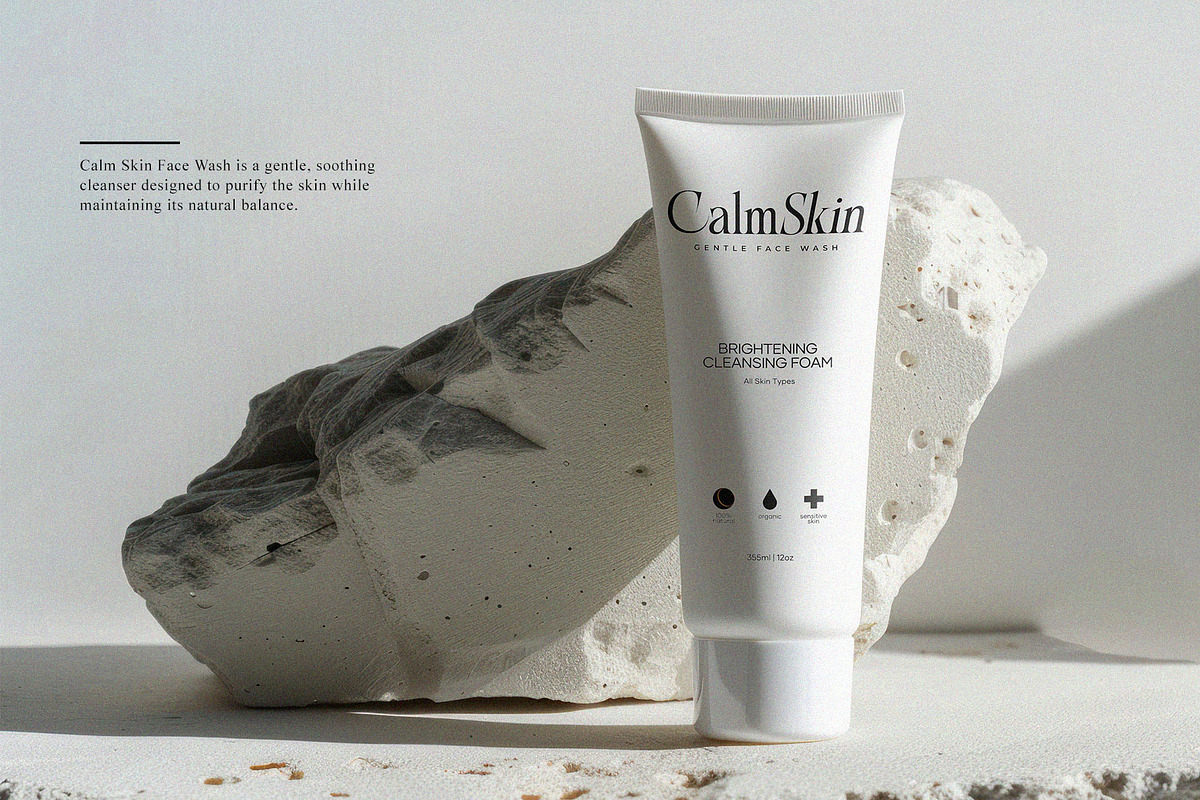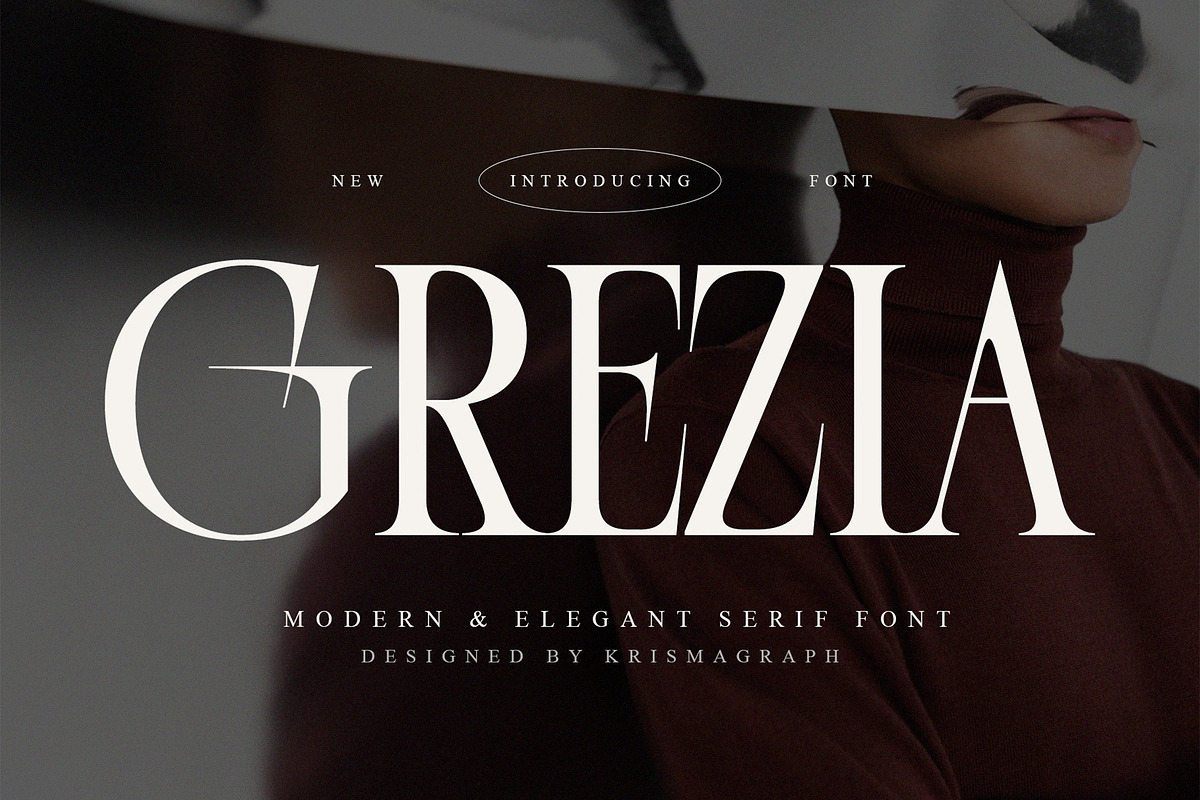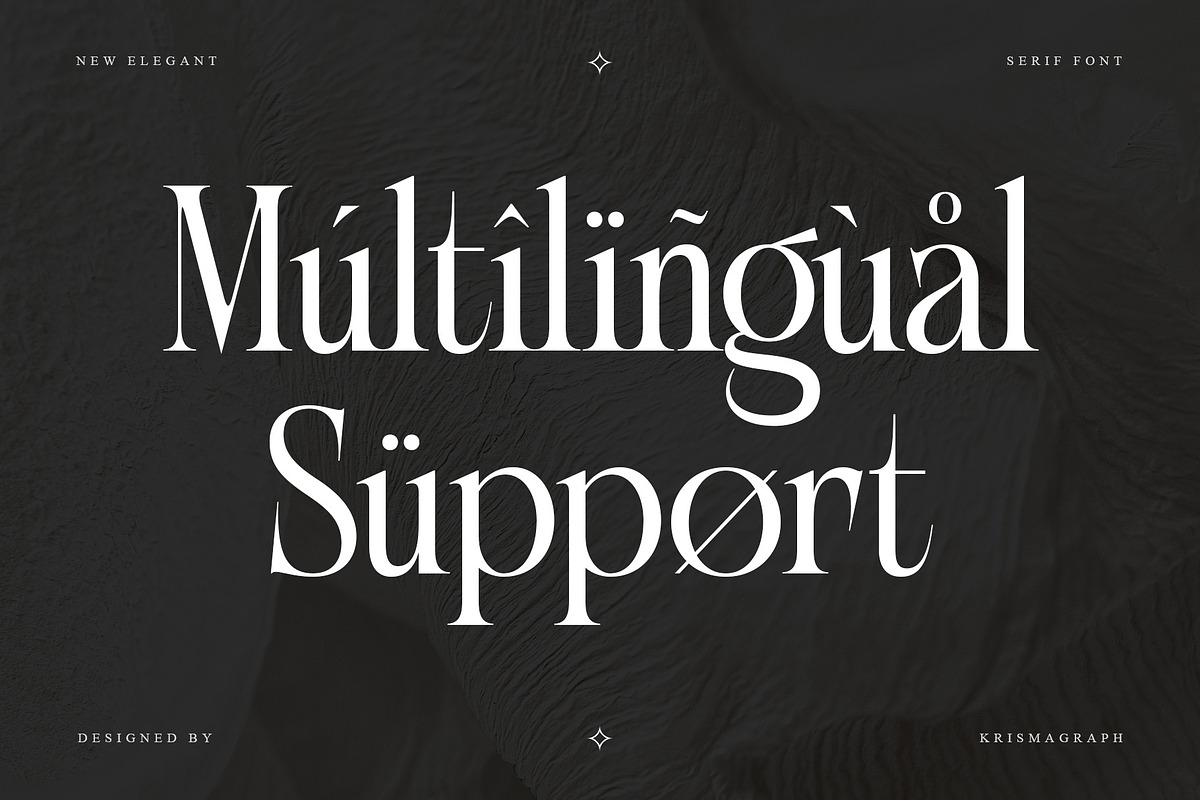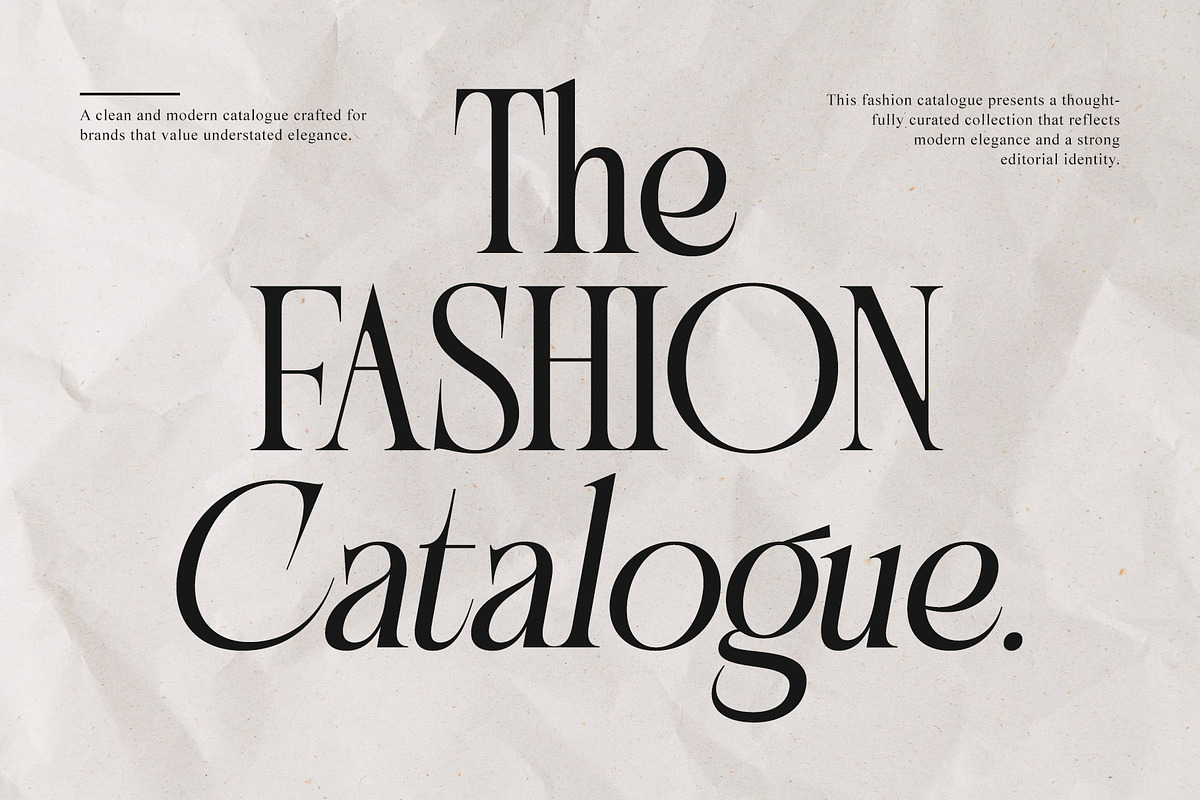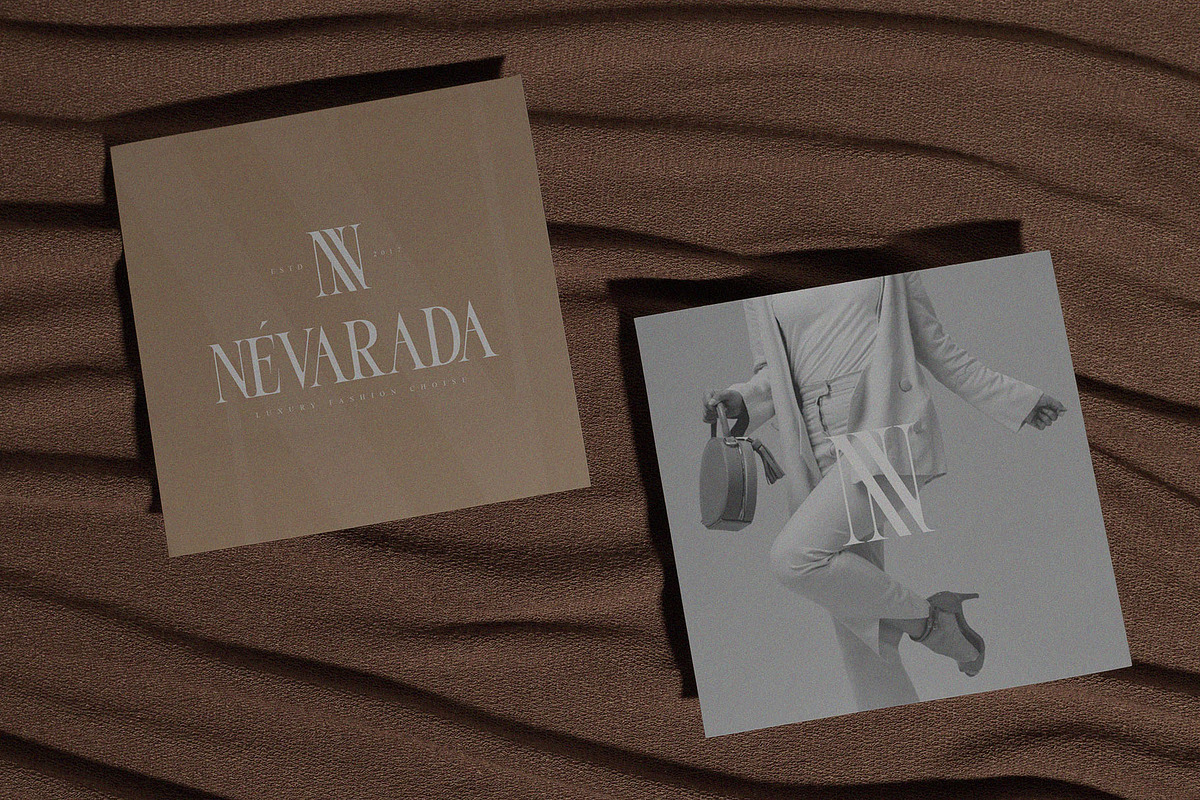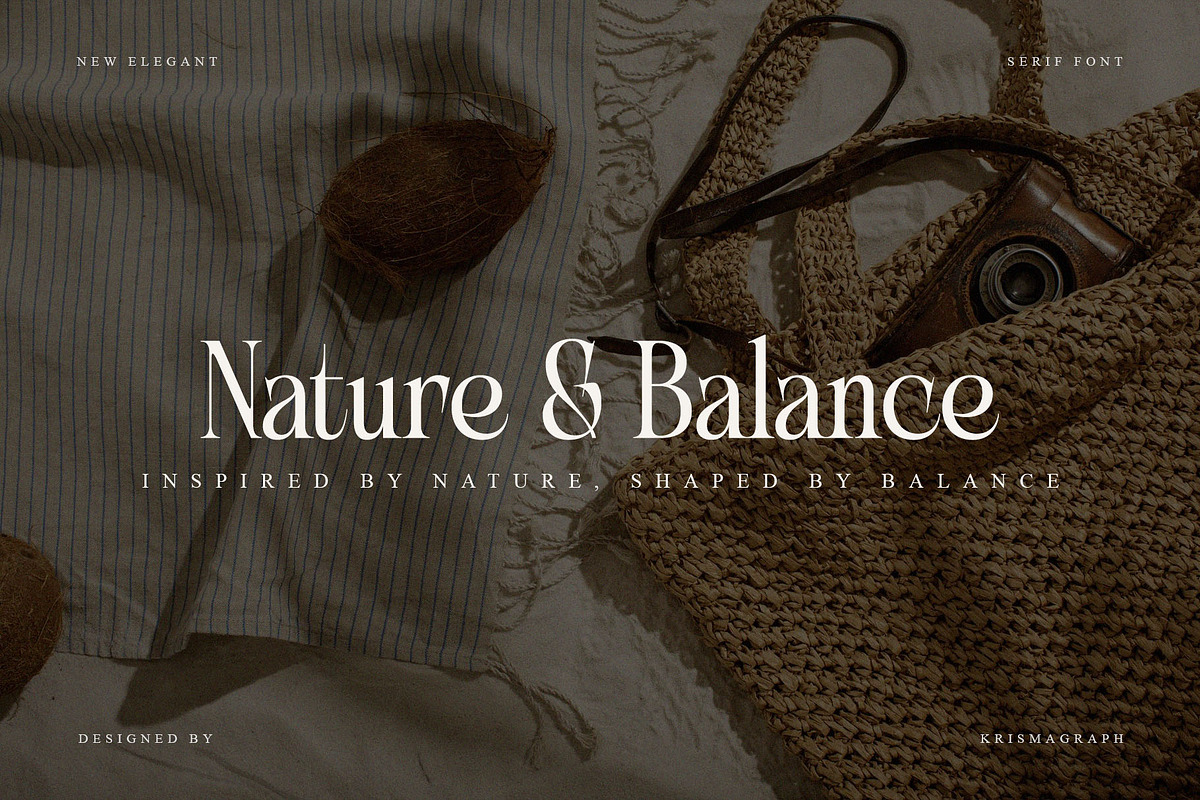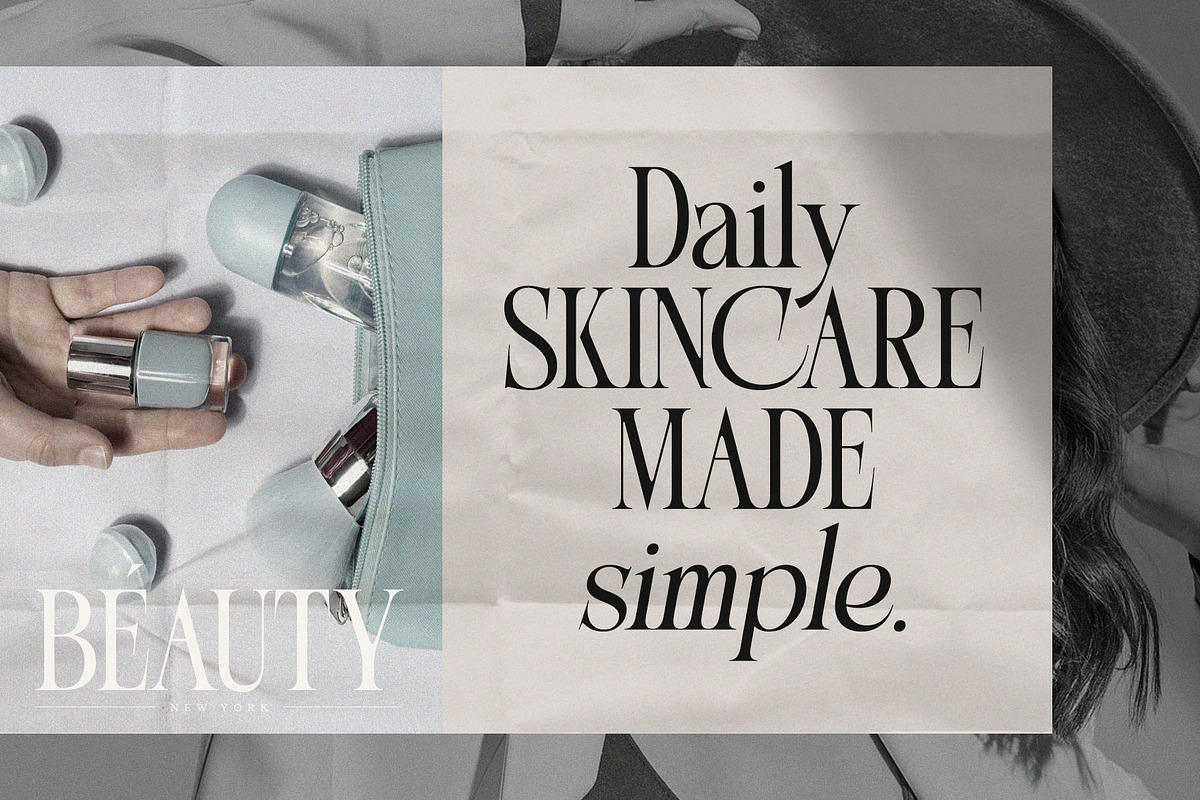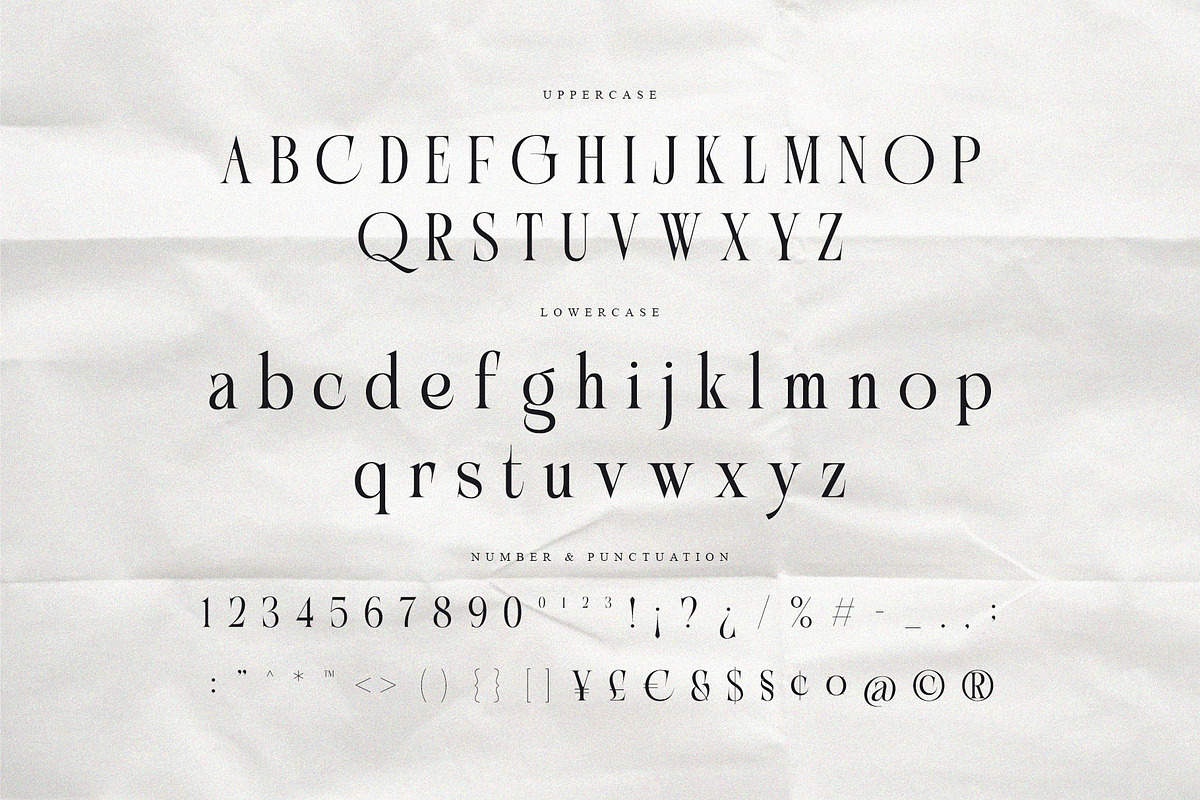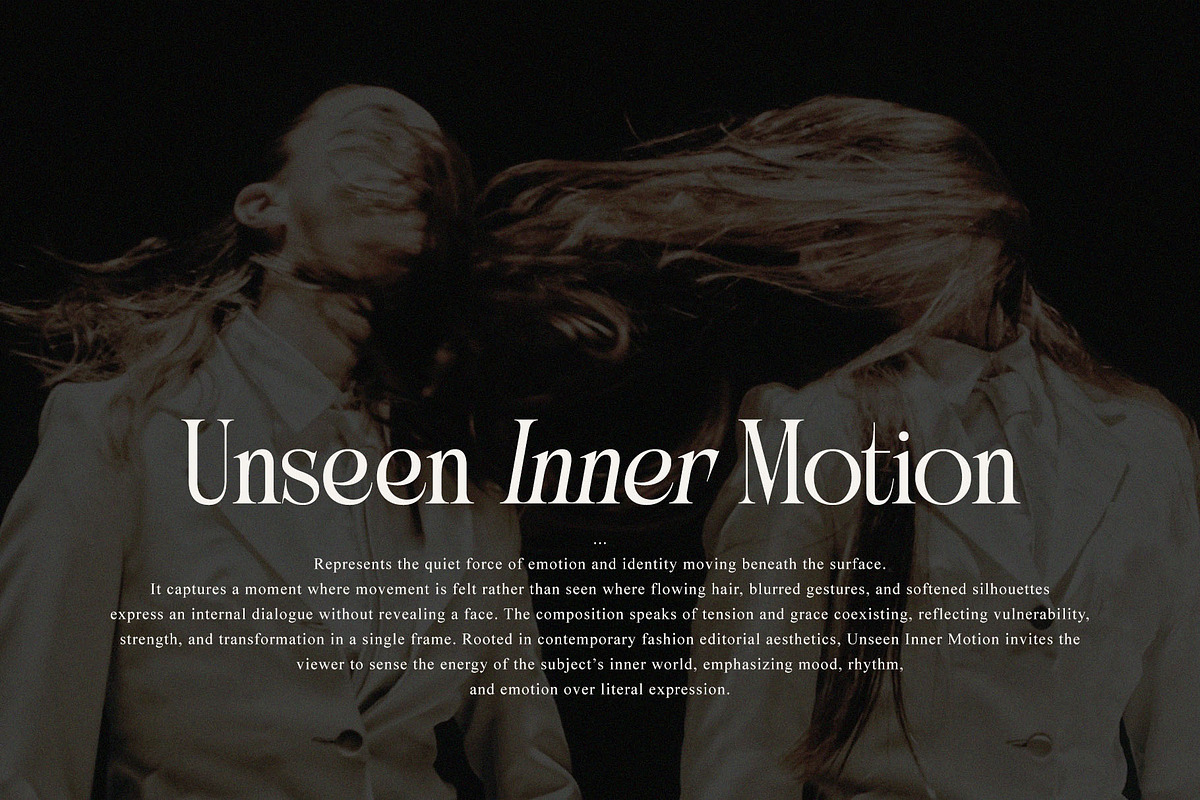
Grezia – Modern Serif Font
Grezia is a modern and elegant serif font that blends timeless sophistication with contemporary character. Designed with high contrast strokes, refined curves, and graceful proportions, Grezia delivers a luxurious yet confident presence across a wide range of creative projects.
This typeface shines in editorial layouts, branding systems, logo design, invitations, packaging, social media visuals, website headers, and premium print materials. Its sharp serifs and balanced letterforms create strong visual hierarchy while maintaining readability and elegance.
Grezia is crafted for designers who seek a serif font that feels modern, stylish, and expressive without losing its classic foundation. Whether used for headlines or short statements, Grezia adds a polished and distinctive voice to any design composition.